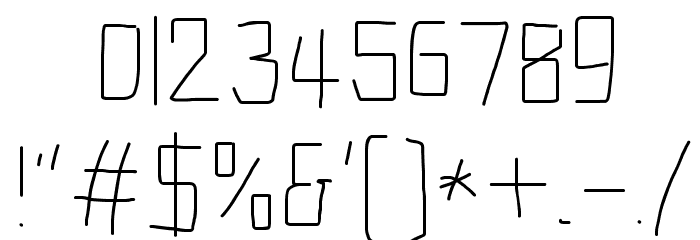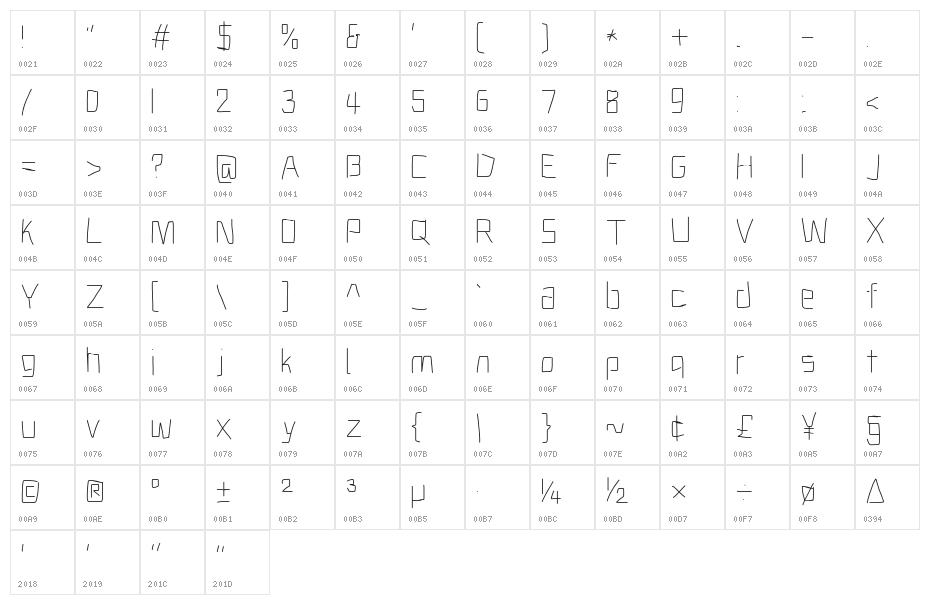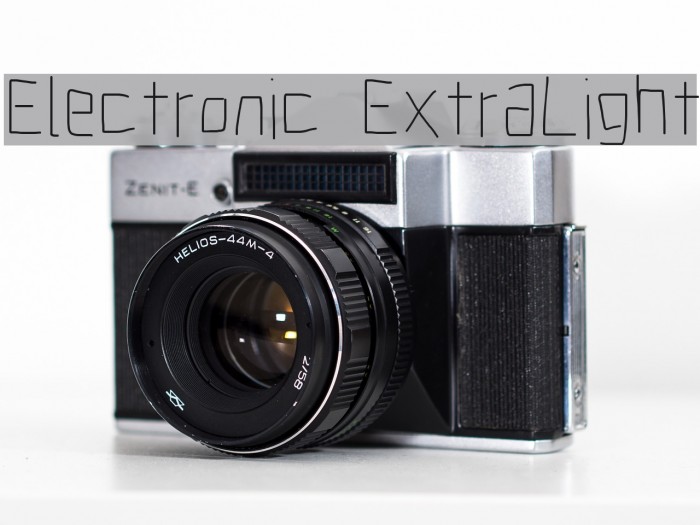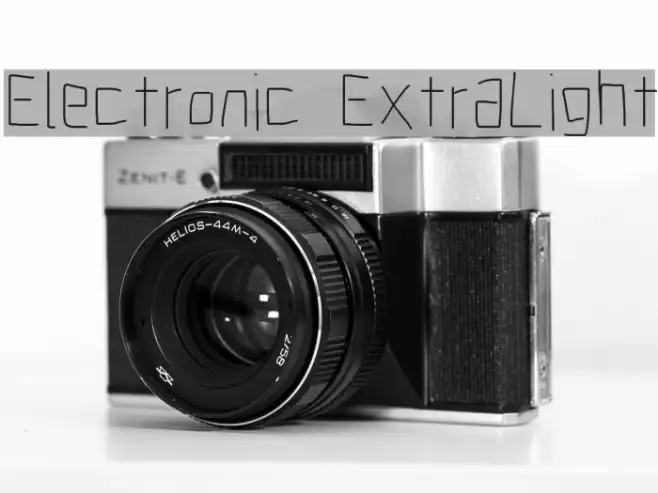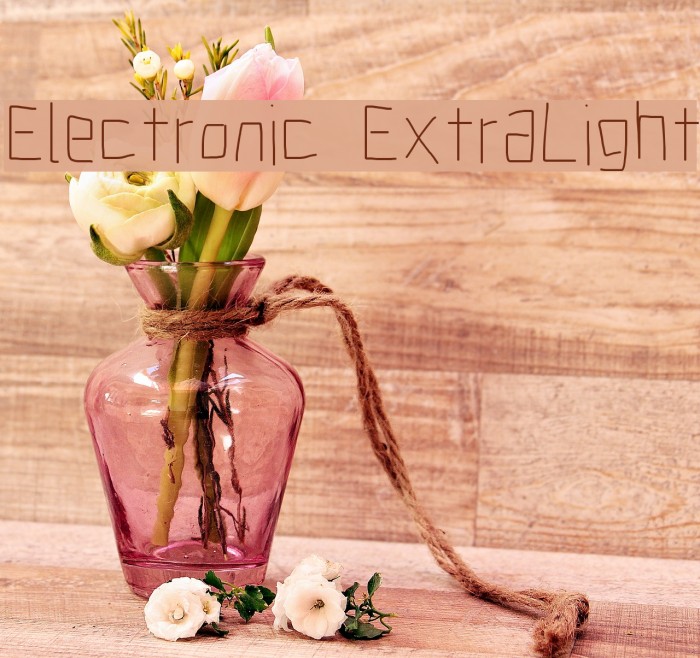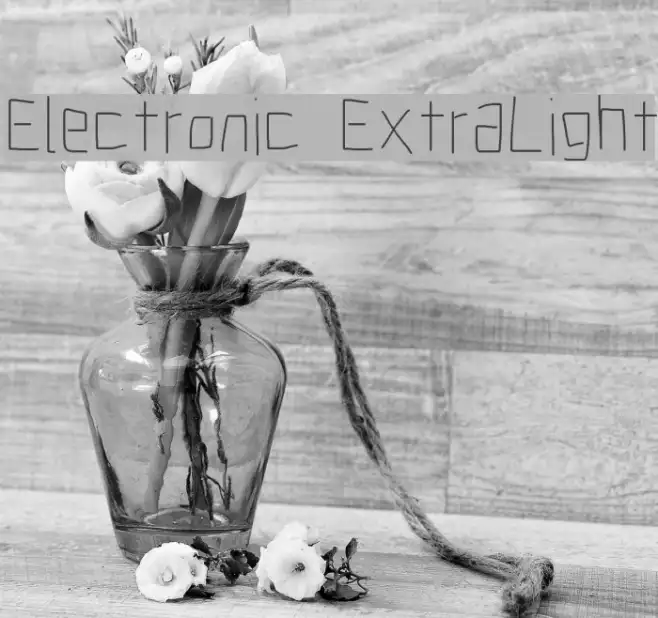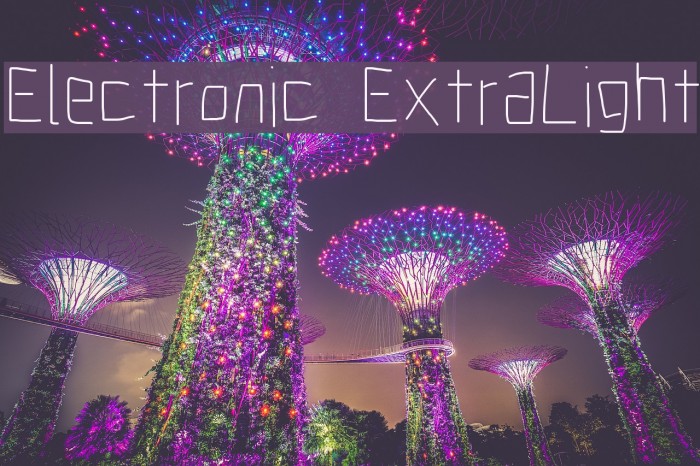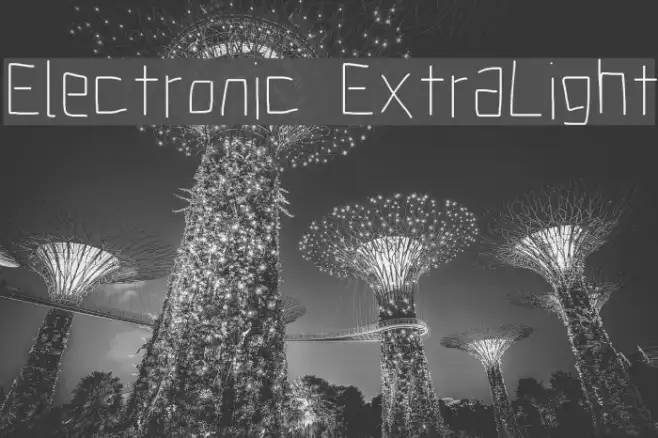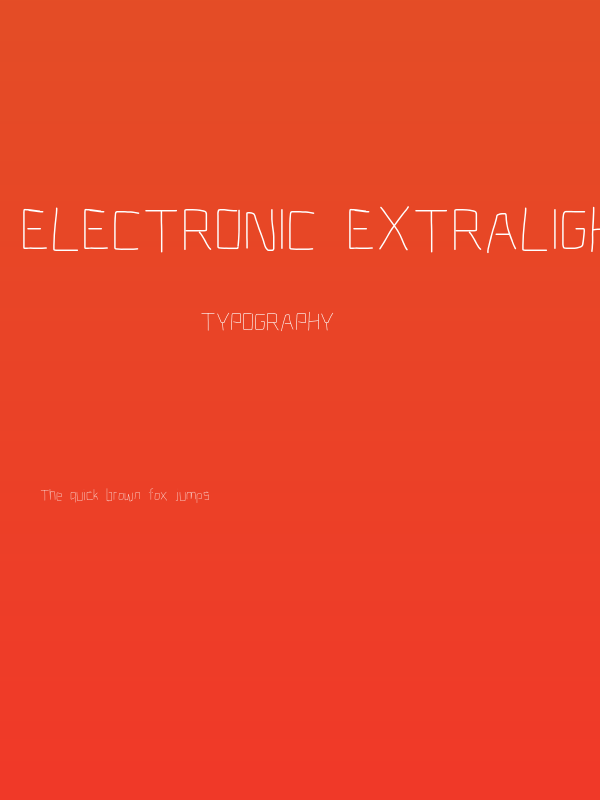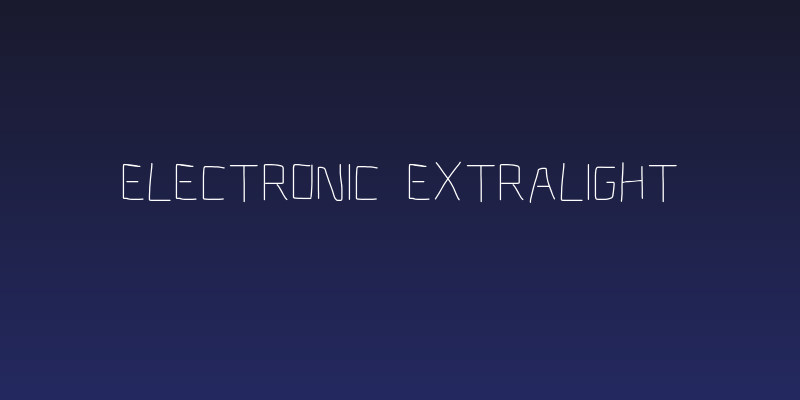
Electronic ExtraLight Font
Electronic ExtraLight Description
This font features a minimalist and geometric design, characterized by its thin, consistent line weight and angular forms. The uppercase and lowercase letters maintain a uniform height, creating a cohesive and modern appearance. The numerals and special characters follow the same design principles, ensuring a seamless integration with the alphabet. The overall style is reminiscent of digital or electronic displays, with a futuristic and clean aesthetic. The simplicity of the lines and the absence of serifs contribute to its sleek and contemporary look, making it suitable for various digital and print applications.
| Proposed Projects | Ideal for tech-related branding, digital interfaces, modern posters, and futuristic designs. |